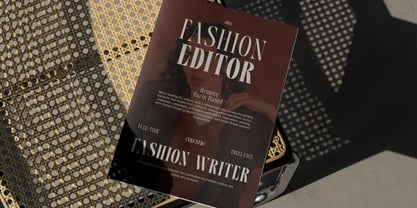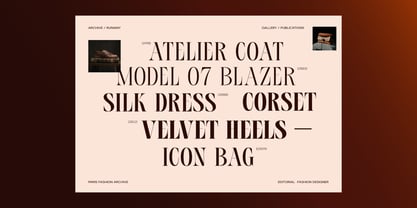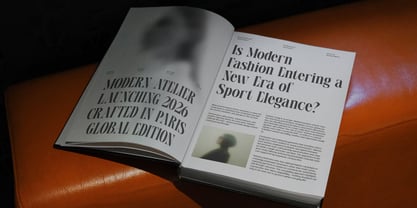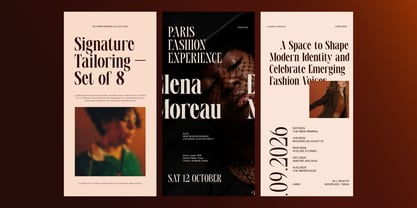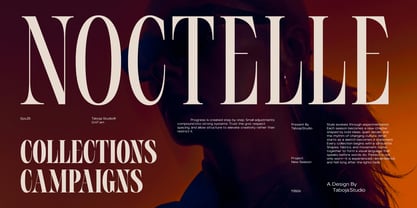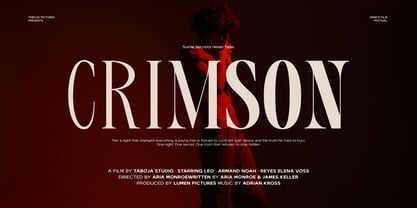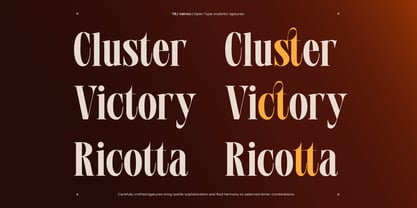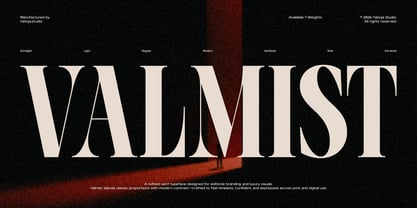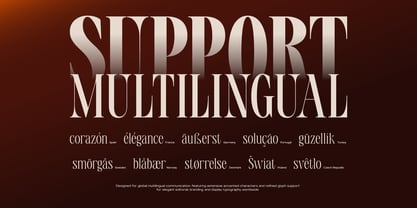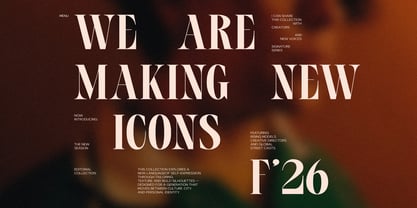
TBJ Valmist
by Taboja Studio
The TBJ Valmist Font Family was designed by Yusilo Oktaprima Ardani and published by Taboja Studio. TBJ Valmist contains 7 styles and family package options. More about this family
TBJ Valmist is an elegant modern serif typeface designed for luxury branding, editorial design, and sophisticated visual communication. Featuring refined proportions, high-contrast strokes, and a versatile range of weights from Extra Light to Extra Bold, it moves effortlessly from delicate magazine typography to bold, confident headlines. Perfect for fashion branding, editorial layouts, premium logos, posters, packaging, and high-end digital design, TBJ Valmist delivers timeless elegance with modern typographic clarity.
Designers: Yusilo Oktaprima Ardani
Foundry: Taboja Studio
Taboja Studio is a type foundry based in Indonesia, dedicated to creating unique and contemporary typefaces that convey distinct emotion and expression. Our designs seamlessly blend artistic vision with high quality, resulting in typefaces that embody deep character and creativity. We aim to reflect simplicity while emphasizing uniqueness, offering the ability to customize individual elements through comprehensive OpenType features. Ideal for designers and brands seeking to enhance their visual identity, Taboja Studio stands out for its commitment to innovation and craftsmanship in typography.